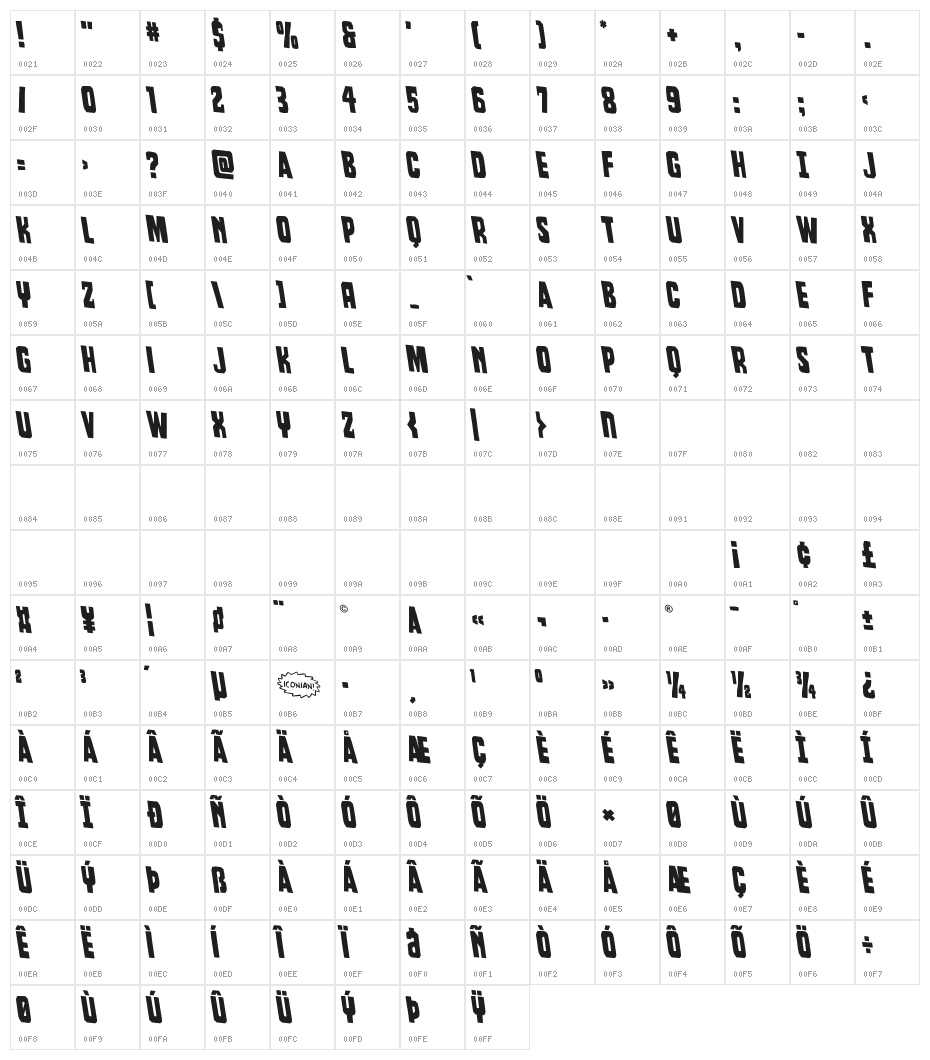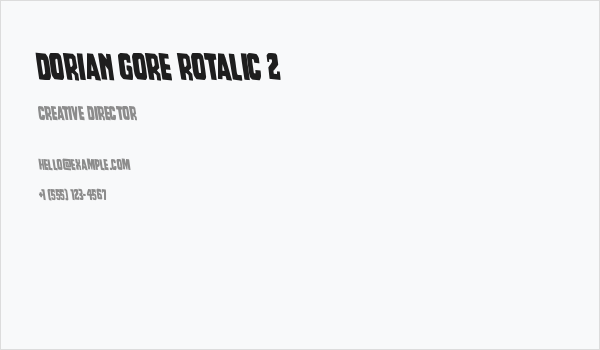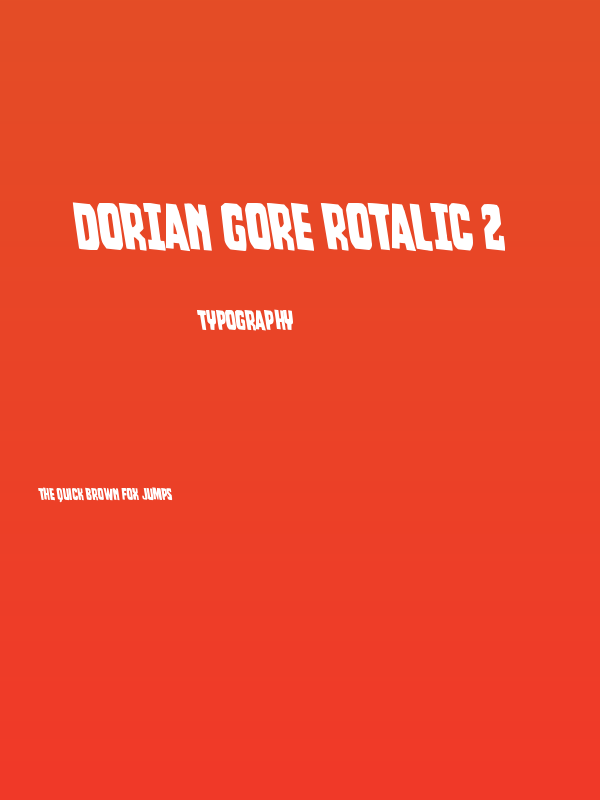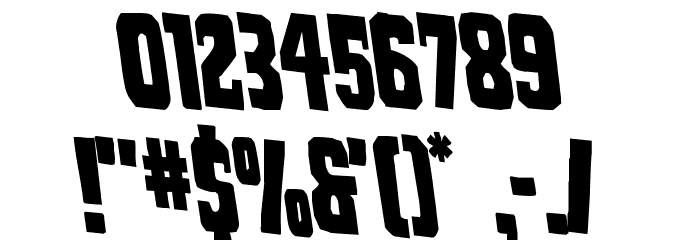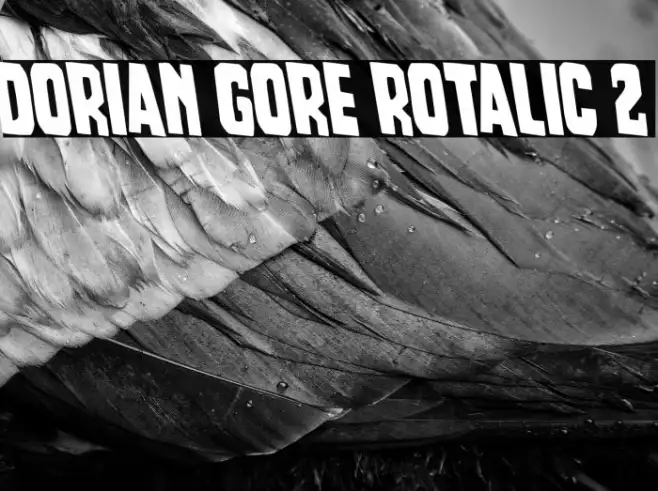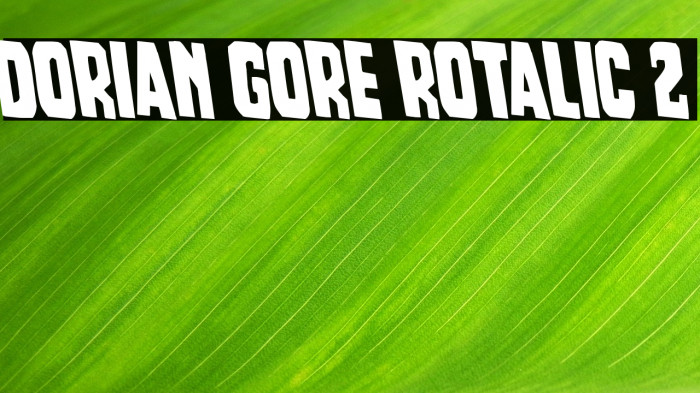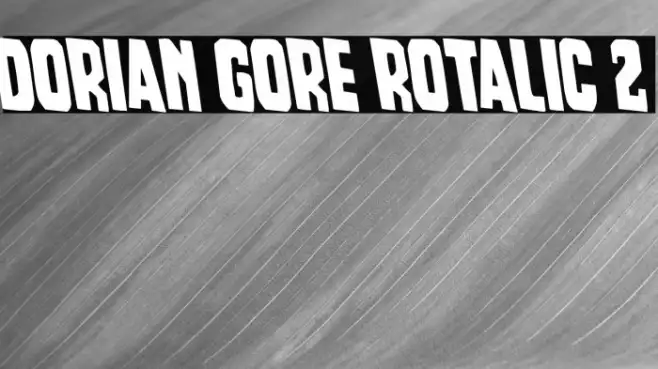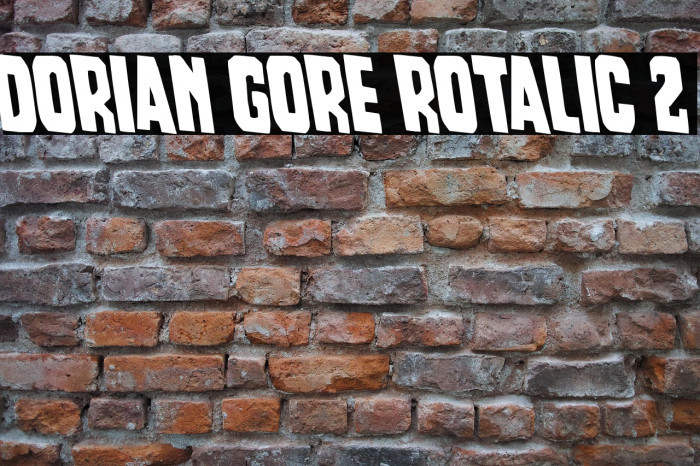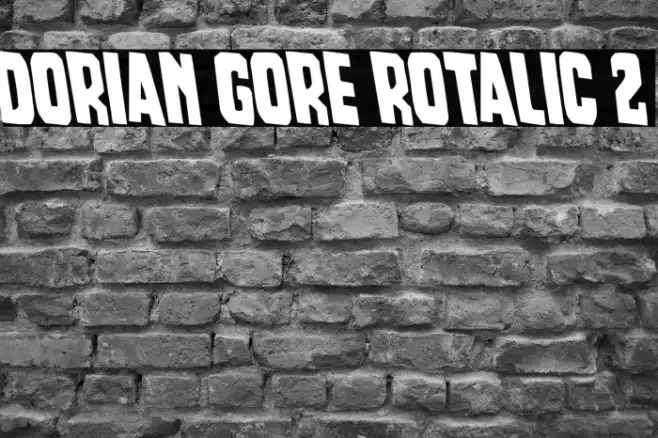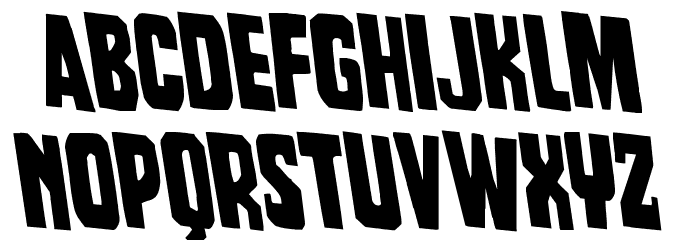
Dorian Gore Rotalic 2 Font
Dorian Gore Rotalic 2 Description
This font exhibits a bold and dynamic style, characterized by its thick, blocky letters with a slight slant, giving it a sense of movement and energy. The uppercase and lowercase letters maintain a consistent weight, contributing to a cohesive and powerful appearance. The numbers and special characters follow the same bold and angular design, ensuring uniformity across all glyphs. The font's strong presence makes it ideal for attention-grabbing designs, while the slight italicization adds a modern twist.
| Proposed Projects | Ideal for posters, headlines, branding, and any project requiring a strong visual impact. |